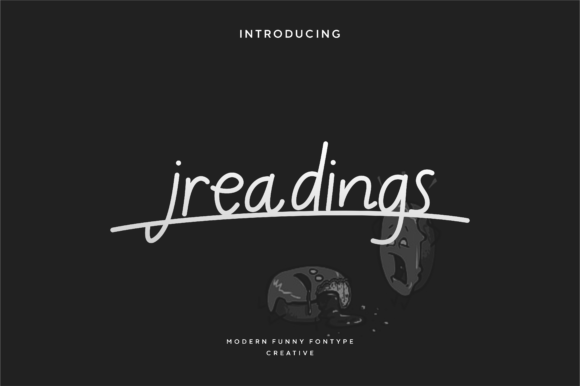
Journey into the Realm of Jreadings: A Script Font That Captivates
Unleash your creativity and embark on a typographic adventure with Jreadings, a script font that embodies elegance and charm. Its alluring curves and sweeping strokes evoke a sense of timeless beauty, making it the perfect choice for projects that demand a touch of sophistication and individuality.
Immerse yourself in the world of fashion branding and editorial design, where Jreadings shines as a beacon of style. Its graceful lines lend themselves effortlessly to logos, invitations, and magazine layouts, adding a hint of luxury and intrigue to your creations. Allow Jreadings to elevate your designs, transforming them into masterpieces that captivate and inspire.
But Jreadings is not confined to the realm of fashion and editorial; its versatility extends far beyond these boundaries. Embrace the artistic freedom to explore new horizons, from heartfelt love letters and enchanting fairy tales to mesmerizing tattoos that tell a story on your skin. Jreadings adapts seamlessly, becoming an extension of your imagination, allowing your words and visuals to dance together in perfect harmony.
With Jreadings, every letter becomes a work of art, a testament to the power of typography to evoke emotions and convey messages. Its smooth curves and harmonious flow create a visual symphony, drawing the eyes and captivating the hearts of your audience. Prepare to be mesmerized as your designs take on a life of their own, imbued with the magic of Jreadings.
Join the creative revolution and let Jreadings be your muse, your faithful companion in the pursuit of typographic excellence. Discover the endless possibilities that await you as you unlock the full potential of this captivating script font. Embrace the beauty of Jreadings and let your creativity soar to new heights.